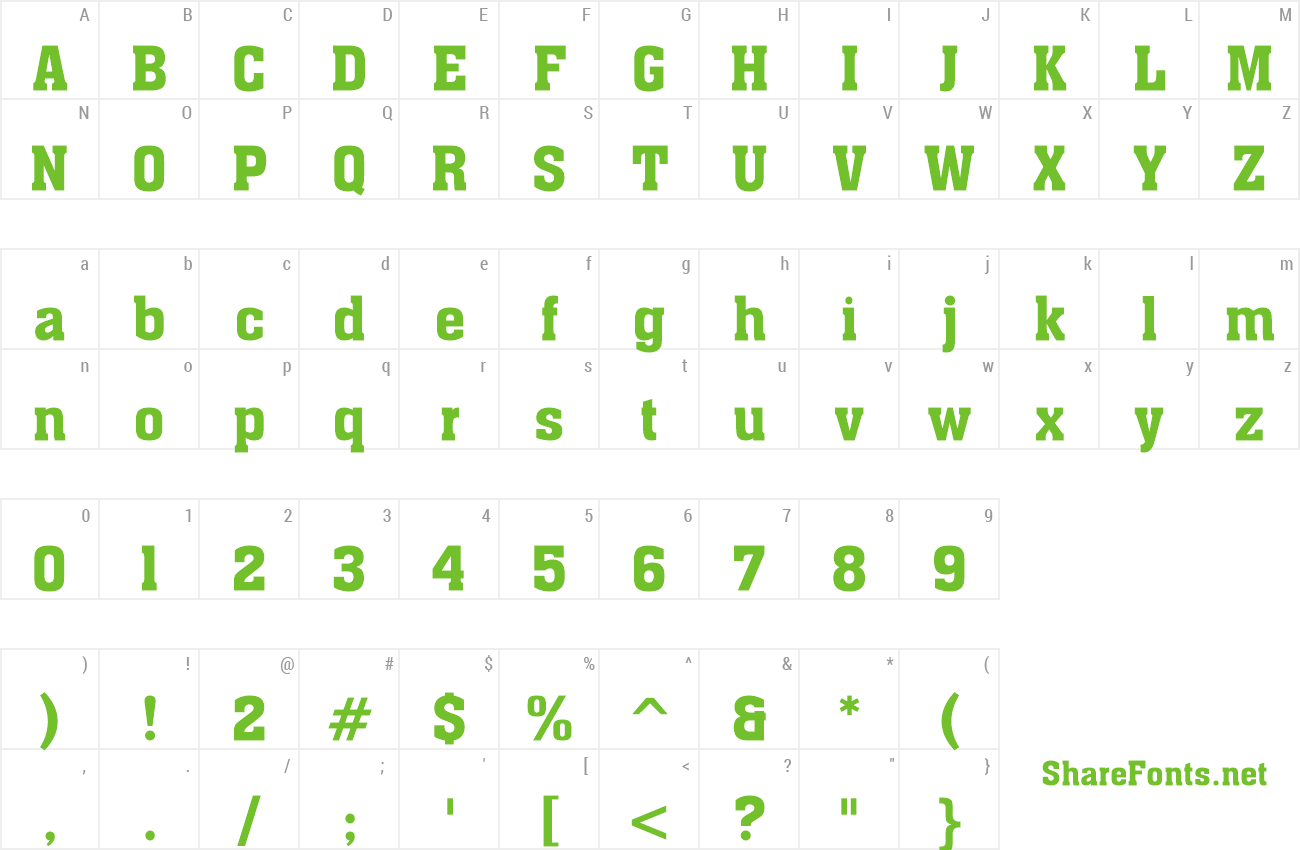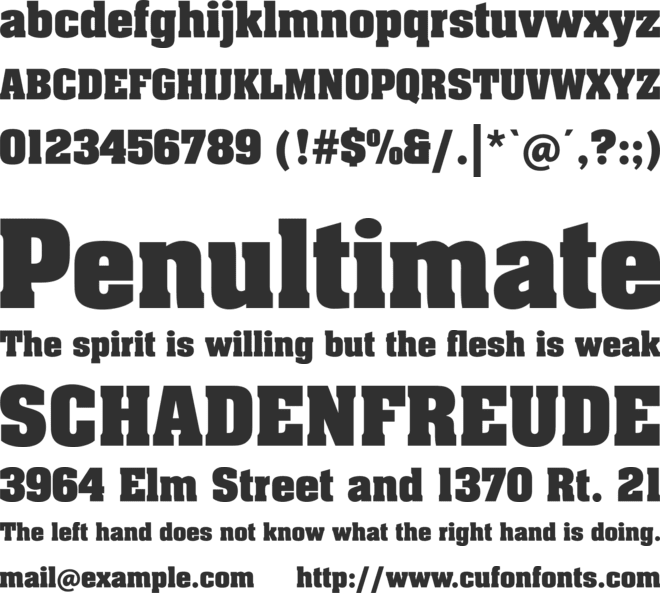
Aachen Font Free Download - This is a truetype font is a bit different from other fonts due to its vibrant look and big. Web download aachen std medium font for free. Web aachen font free download. Download aachen font free in zip and tff format. Web it was initially released with only one bold style but it has been expanded with some more weights. Web aachen font is a bit different from others due to its vibrant typeface with big strokes. Explore thousands of fonts and typefaces for free. The current font has 9 weights with matching italics.
This is a truetype font is a bit different from other fonts due to its vibrant look and big. Explore thousands of fonts and typefaces for free. Web it was initially released with only one bold style but it has been expanded with some more weights. The current font has 9 weights with matching italics. Web aachen font is a bit different from others due to its vibrant typeface with big strokes. Download aachen font free in zip and tff format. Web download aachen std medium font for free. Web aachen font free download.
The current font has 9 weights with matching italics. Web it was initially released with only one bold style but it has been expanded with some more weights. Download aachen font free in zip and tff format. Web aachen font is a bit different from others due to its vibrant typeface with big strokes. Explore thousands of fonts and typefaces for free. Web aachen font free download. Web download aachen std medium font for free. This is a truetype font is a bit different from other fonts due to its vibrant look and big.
This is a truetype font is a bit different from other fonts due to its vibrant look and big. The current font has 9 weights with matching italics. Explore thousands of fonts and typefaces for free. Web aachen font free download. Web it was initially released with only one bold style but it has been expanded with some more weights.
Explore thousands of fonts and typefaces for free. Web aachen font is a bit different from others due to its vibrant typeface with big strokes. The current font has 9 weights with matching italics. Web aachen font free download. Web download aachen std medium font for free.
Web it was initially released with only one bold style but it has been expanded with some more weights. Web aachen font free download. This is a truetype font is a bit different from other fonts due to its vibrant look and big. Download aachen font free in zip and tff format. Web download aachen std medium font for free.
Web aachen font free download. Explore thousands of fonts and typefaces for free. The current font has 9 weights with matching italics. Web download aachen std medium font for free. Download aachen font free in zip and tff format.
This is a truetype font is a bit different from other fonts due to its vibrant look and big. Web aachen font free download. Web aachen font is a bit different from others due to its vibrant typeface with big strokes. Web download aachen std medium font for free. The current font has 9 weights with matching italics.
Web aachen font free download. Explore thousands of fonts and typefaces for free. Web aachen font is a bit different from others due to its vibrant typeface with big strokes. Download aachen font free in zip and tff format. This is a truetype font is a bit different from other fonts due to its vibrant look and big.
Web download aachen std medium font for free. The current font has 9 weights with matching italics. This is a truetype font is a bit different from other fonts due to its vibrant look and big. Web aachen font free download. Download aachen font free in zip and tff format.
Web it was initially released with only one bold style but it has been expanded with some more weights. Explore thousands of fonts and typefaces for free. Web download aachen std medium font for free. Web aachen font is a bit different from others due to its vibrant typeface with big strokes. This is a truetype font is a bit.
Explore thousands of fonts and typefaces for free. Web aachen font free download. Web aachen font is a bit different from others due to its vibrant typeface with big strokes. Web it was initially released with only one bold style but it has been expanded with some more weights. Web download aachen std medium font for free.
Explore thousands of fonts and typefaces for free. The current font has 9 weights with matching italics. This is a truetype font is a bit different from other fonts due to its vibrant look and big. Web aachen font is a bit different from others due to its vibrant typeface with big strokes. Download aachen font free in zip and.
Web it was initially released with only one bold style but it has been expanded with some more weights. Web download aachen std medium font for free. Explore thousands of fonts and typefaces for free. Web aachen font is a bit different from others due to its vibrant typeface with big strokes.
This Is A Truetype Font Is A Bit Different From Other Fonts Due To Its Vibrant Look And Big.
Download aachen font free in zip and tff format. The current font has 9 weights with matching italics.